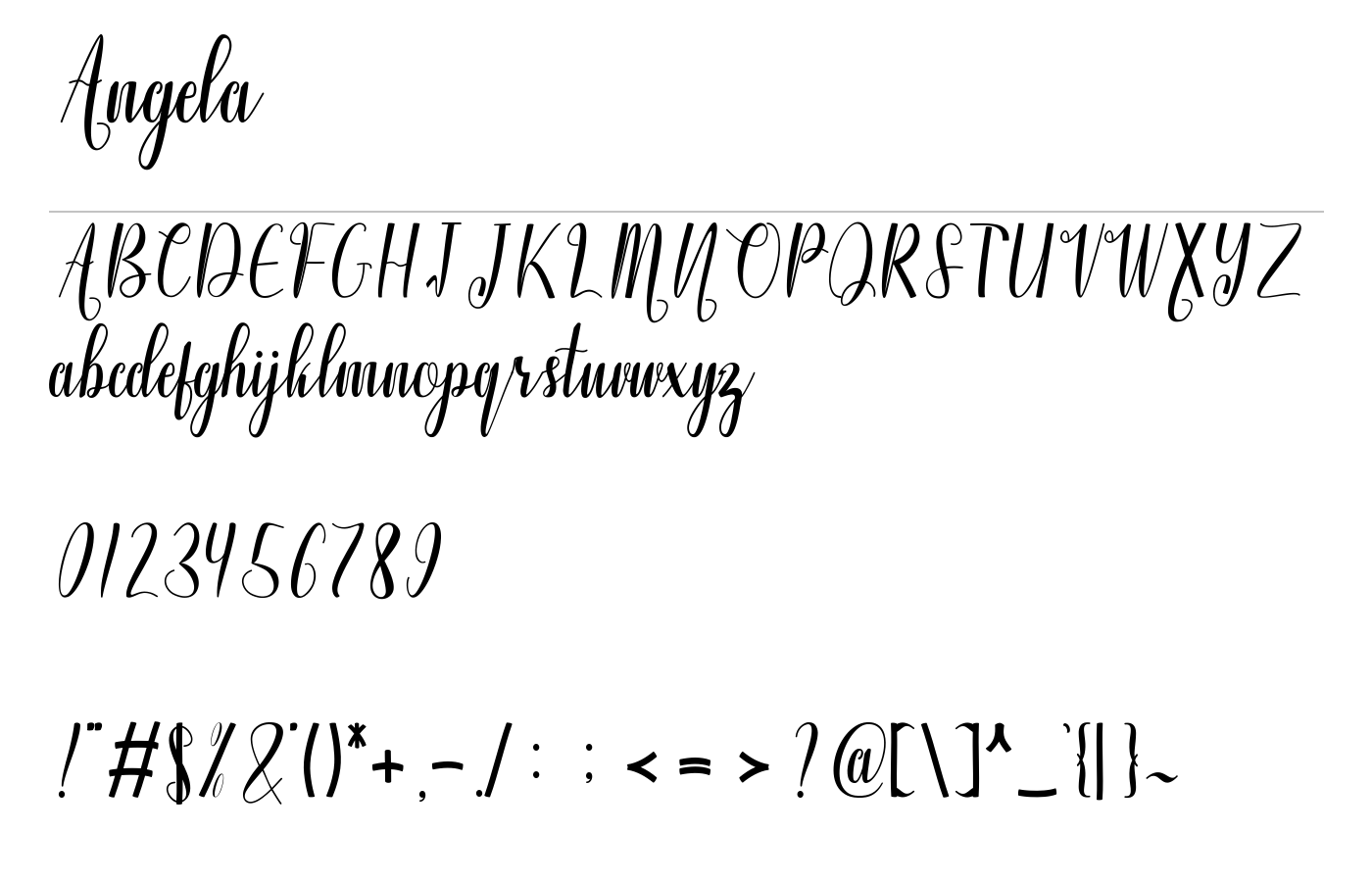
Angela is an elegant, modern script font with a delicate, handwritten feel characterized by slender, flowing strokes and graceful swashes. Its tall, narrow letterforms and high contrast between thick and thin lines make it perfect for stylish branding, invitations, and feminine design projects that seek a touch of sophistication and charm.
Angela Font
About Angela Font
| Font family | Angela Font |